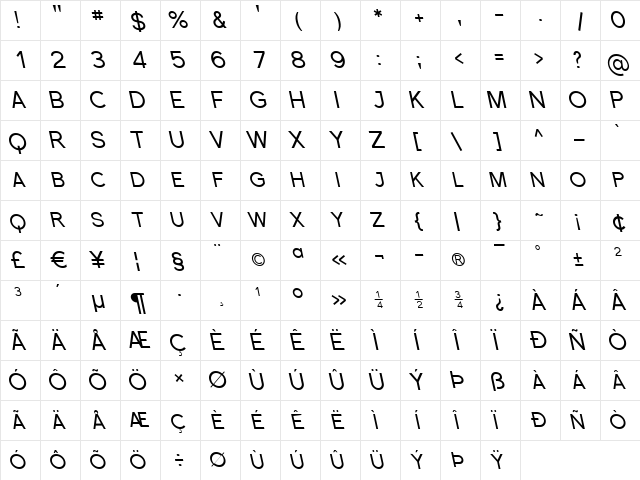
Florencesans SC Rev Italic
Design Context for Florencesans SC Rev Typeface
Florencesans SC Rev offers clean, dependable letterforms without strong stylistic allegiance, making it a practical choice for designers who need flexibility. The dynamic lean of this cut emphasises speed and emphasis in any layout.
Pro Tip: Try Florencesans SC Rev for annotation and caption copy alongside an upright companion — the contrast in angle creates a dynamic but ordered typographic system.